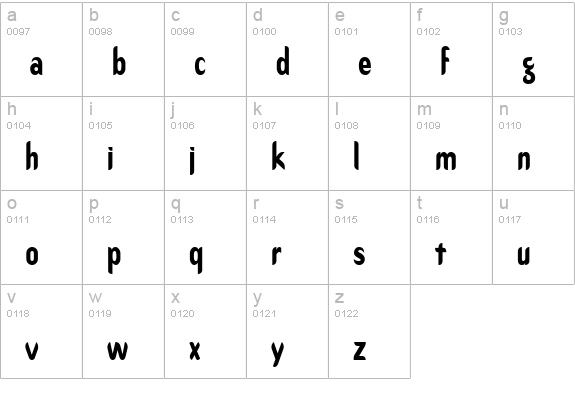
CallimarkerCondensed Normal Font Details
CallimarkerCondensed Normal is the standard, neutral variant in the CallimarkerCondensed typeface family \xE2\x80\x94 well suited to general body text, paragraphs, and standard typographic work.
CallimarkerCondensed Normal font is a stylish and modern typeface that exudes elegance and sophistication. With its clean lines and sleek design, this font is perfect for a wide range of design projects, from branding to packaging to social media posts. The condensed style of the font makes it ideal for creating eye-catching headlines and titles that will grab the attention of your audience. What sets CallimarkerCondensed Normal font apart is its versatility and readability. Whether used in print or digital media, this font maintains its clarity and legibility, ensuring that your message is communicated effectively. The subtle curves and unique character shapes of the font add a touch of personality and flair to any project. Best of all, CallimarkerCondensed Normal font is available for free download at FontsMarket.com. This means that you can easily access this high-quality font and use it in your designs without any cost. Don't miss out on the opportunity to elevate your projects with the elegant and stylish CallimarkerCondensed Normal font. Download it today and add a touch of sophistication to your designs!